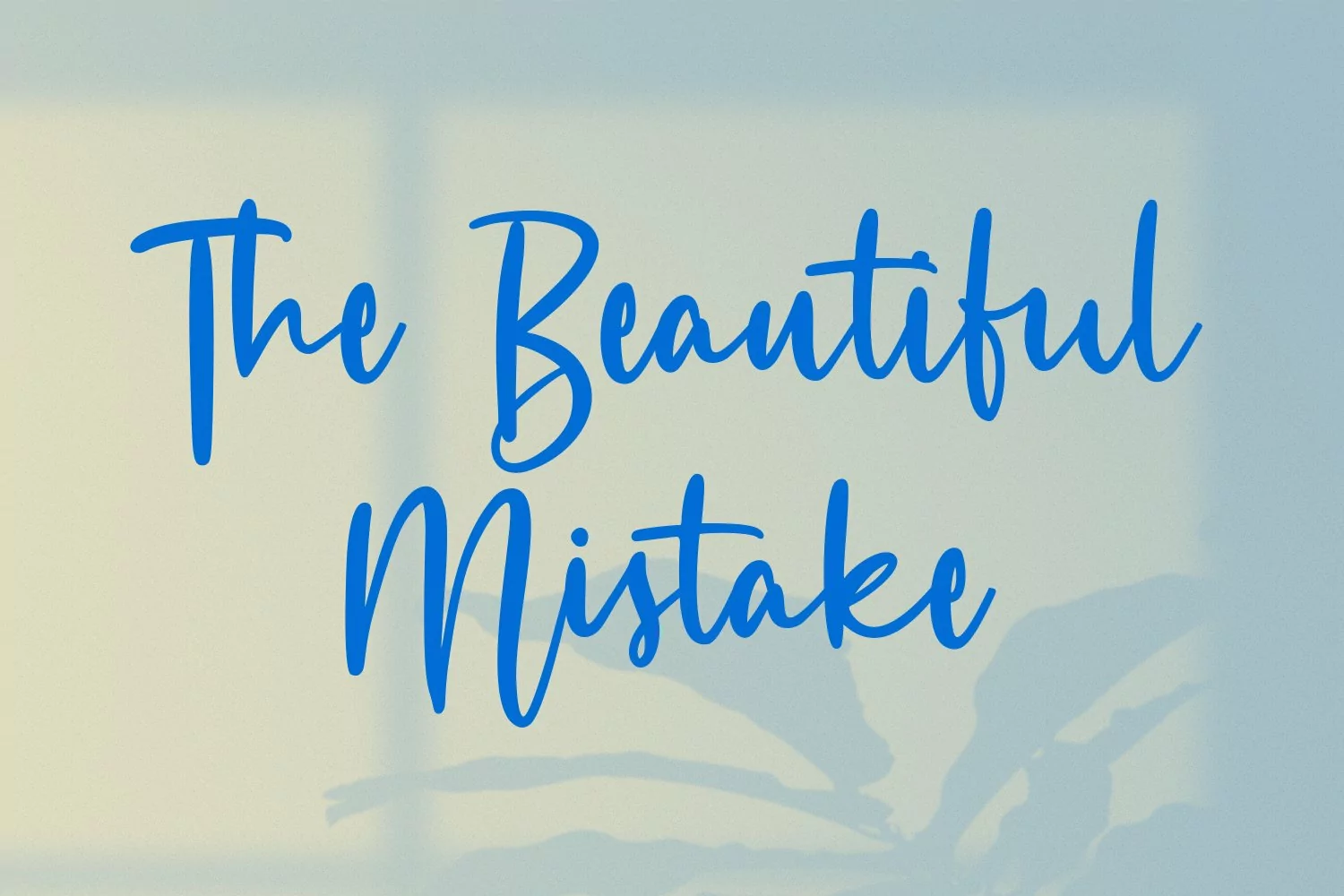
Bagfullest is a casual upright handwritten script font. With regular stroke, fun character with a bit of ligatures. To give you an extra creative work. Bagfullest font support multilingual more than 100+ language. This font is good for logo design, Social media, Movie Titles, Books Titles, a short text even a long text letter and good for your secondary text font with sans or serif. Make a stunning work with Bagfullest font.